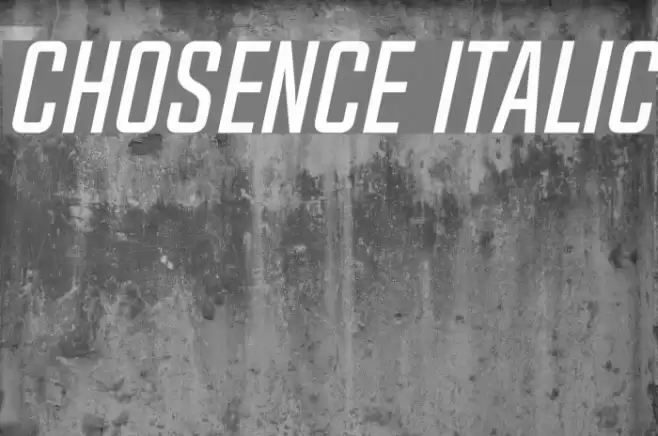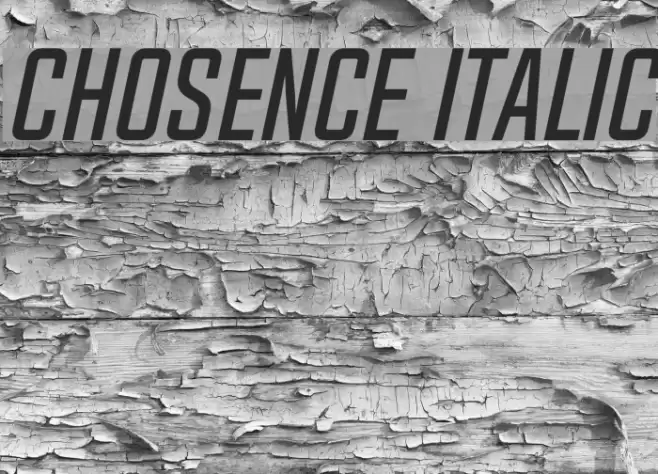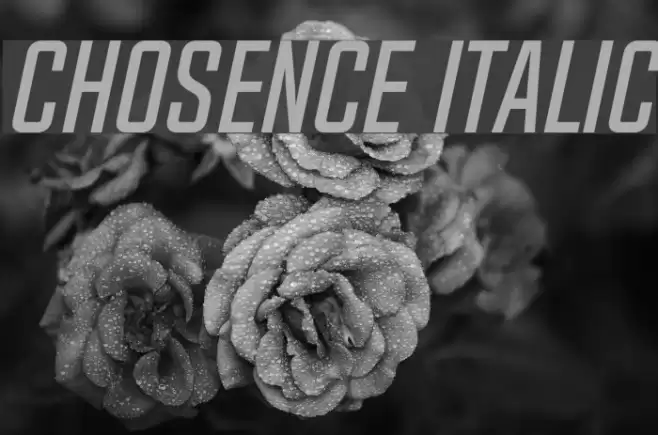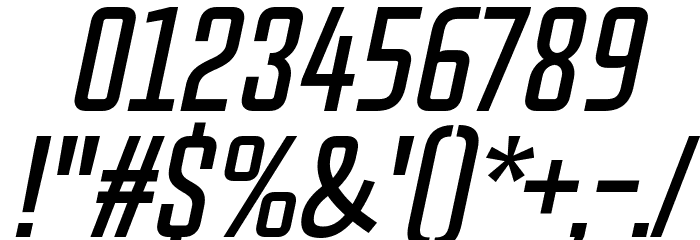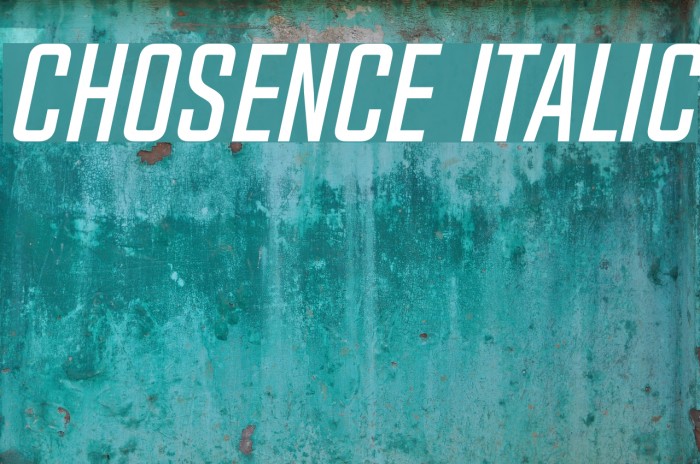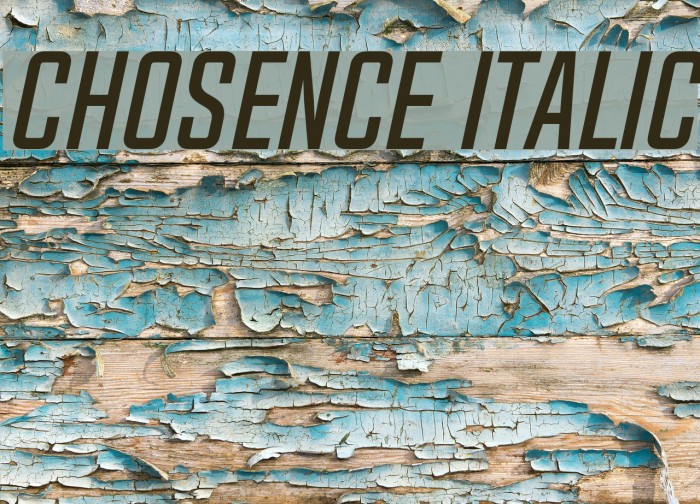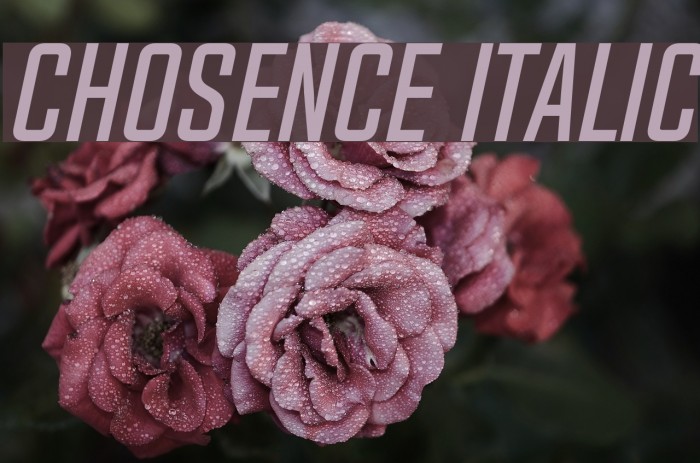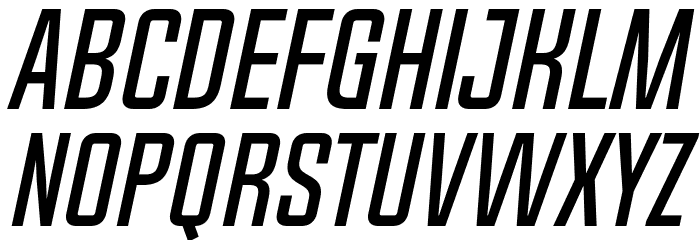
Chosence Italic Font
Chosence Italic Description
This font features a dynamic and modern style with a distinct italic slant, giving it a sense of motion and energy. The characters are tall and narrow, contributing to a condensed appearance that maintains readability. The strokes are consistent in weight, providing a uniform look across all characters. The uppercase and lowercase letters are well-proportioned, and the numerals are clear and easily distinguishable. Special characters are included, enhancing the font's versatility. The overall design is sleek and contemporary, making it suitable for a variety of applications.
A modern, italic font with a condensed and dynamic style from Uncategorized fonts.
- Proposed Projects: Ideal for sports branding, dynamic posters, modern advertising, and digital media.